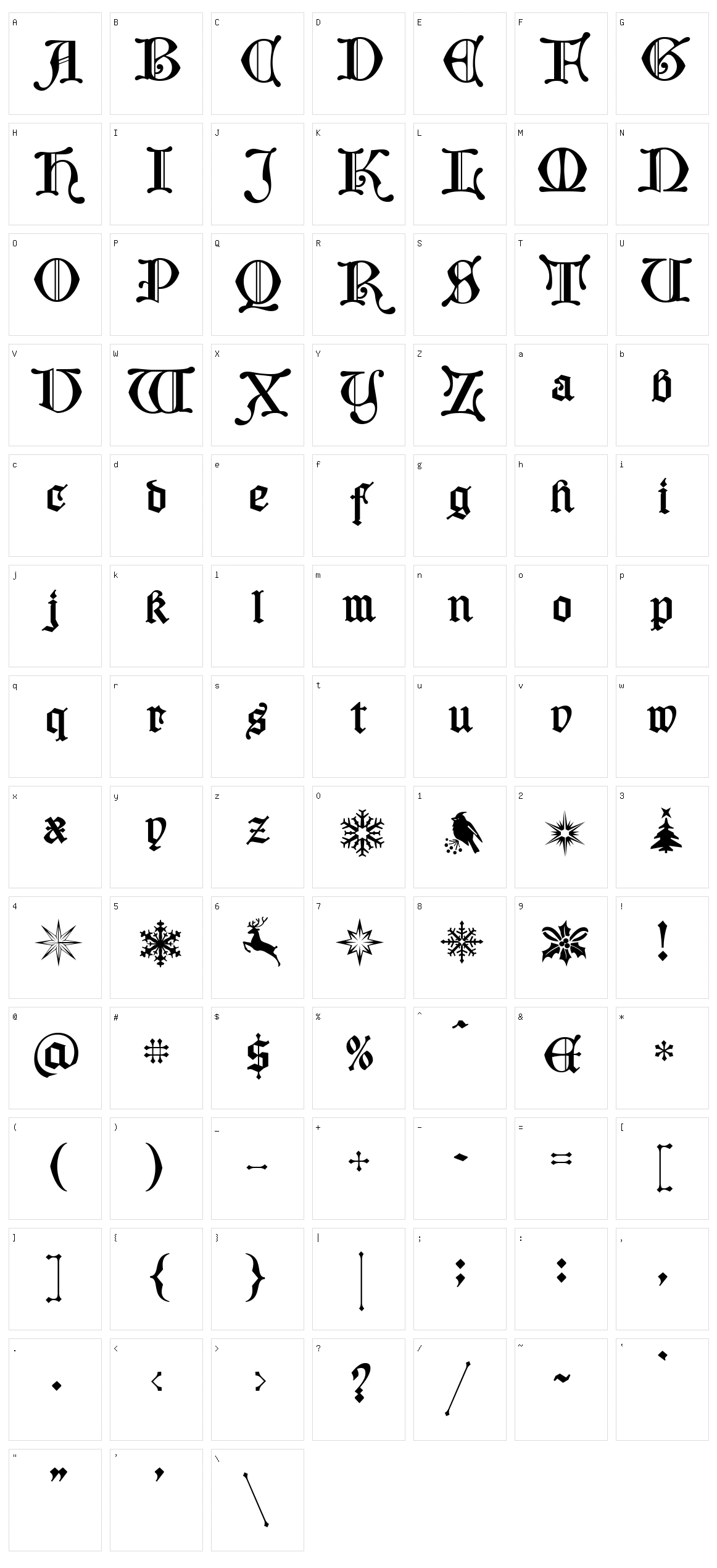
Santa Claus is a traditional Christmas typeface.
Being decorative and based on antique, Middle Ages letter forms, it aims to be
a traditional type for Holiday contexts.
The lettering was drawn by Måns Grebäck and put together into a font during 2019.
The font is of high quality, and comes with an additional Christmas symbol typeface.
You can also use the numbers to access symbols. Example: Santa6Claus
It contains all necessary characters and supports a very wide range of international languages.